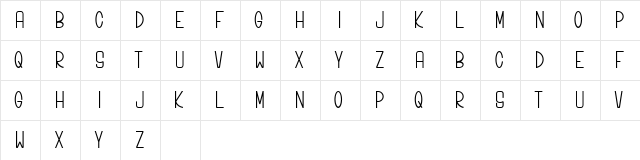
Bonjour Allgera Sans Regular
| Foundry | Marchtwentype Studio |
| Designer | E. Nurcahyo |
Design Context for Bonjour Allgera Sans Typeface
Bonjour Allgera Sans takes a measured approach to typography — its balanced proportions and neutral character make it a reliable workhorse for both digital and print work.